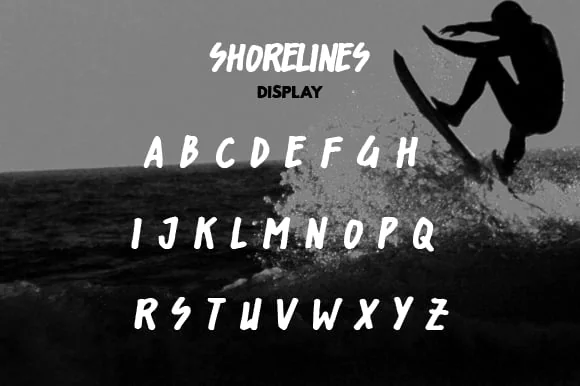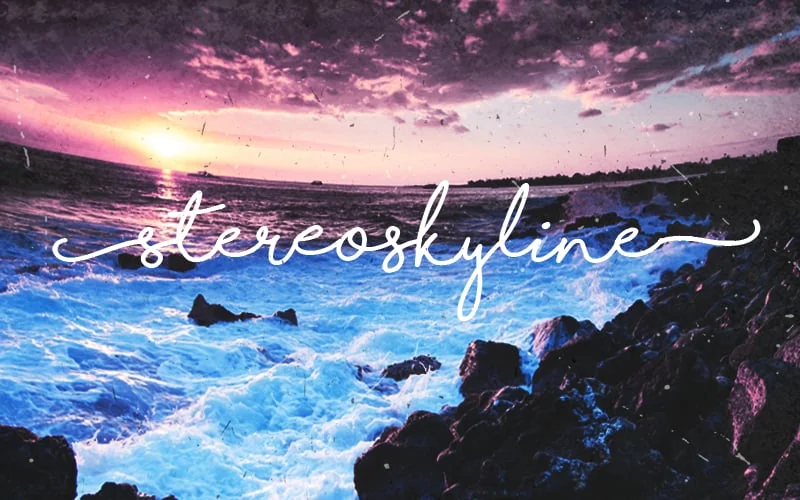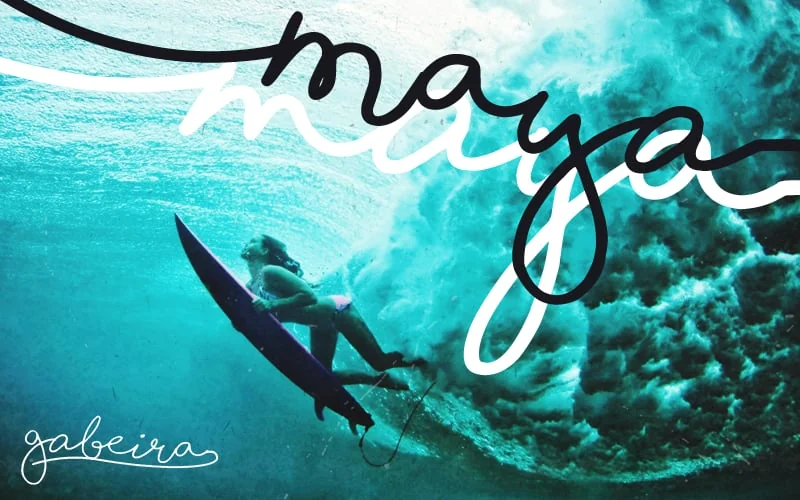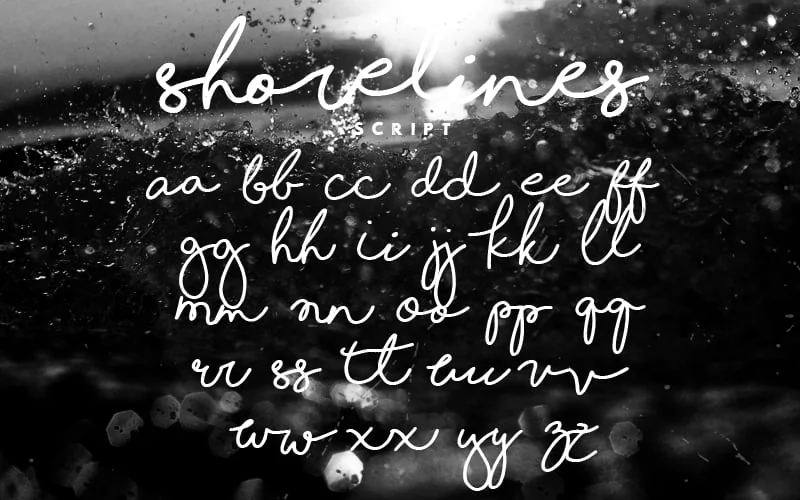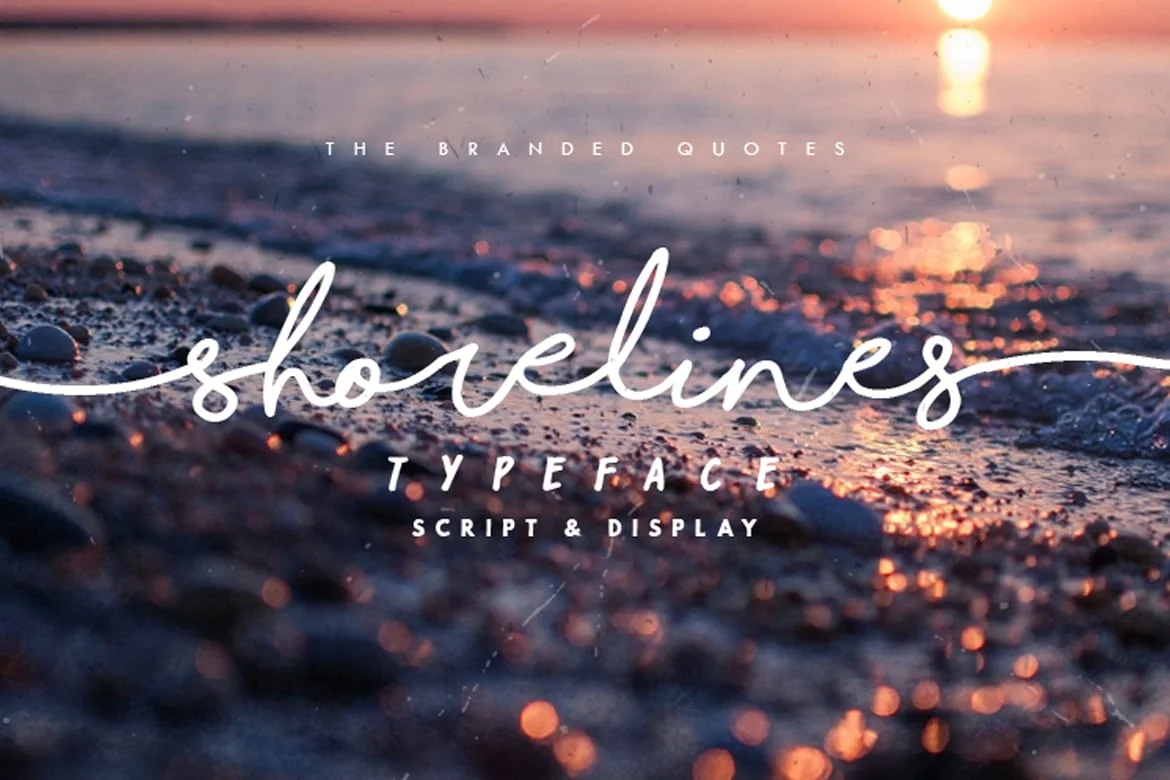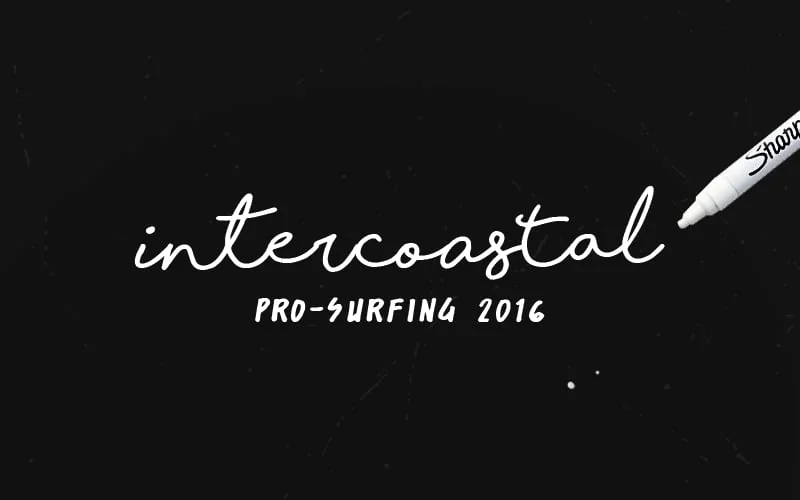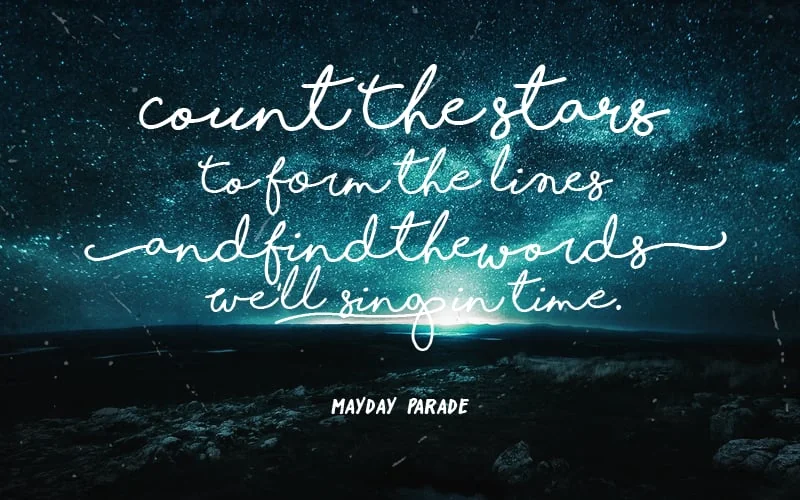
Shorelines Typeface
Shorelines Typeface – not your average Cursive font, Shorelines can behave like a girl’s handwriting then shreds like a boss over the sea waves! Whether you’re a photographer who wants that signature text on your images, or a blogger, maybe a Pro-Surfer? Shorelines Script will cater all your cursive dreams. The imbalanced heights and spacing will give your work a natural and handwritten look.
Shorelines Script – In Bold and Light versions were alternates are in the Uppercase forms.
Shorelines Display – A bit slanted Capitals to grab a little attention when paired with the cursive.